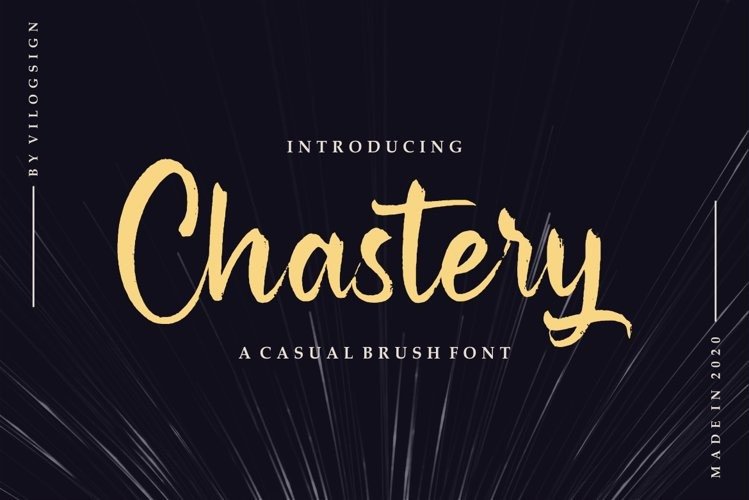
Chastery Font
Chastery Brush Font is a hand-drawn brush typeface manufactured by Vilogsign. It features an incredibly classic style, while still keeping a friendly feel. This typeface is perfect for branding purposes, invitations, logo designs, wedding cards, and can even be used for beauty items.